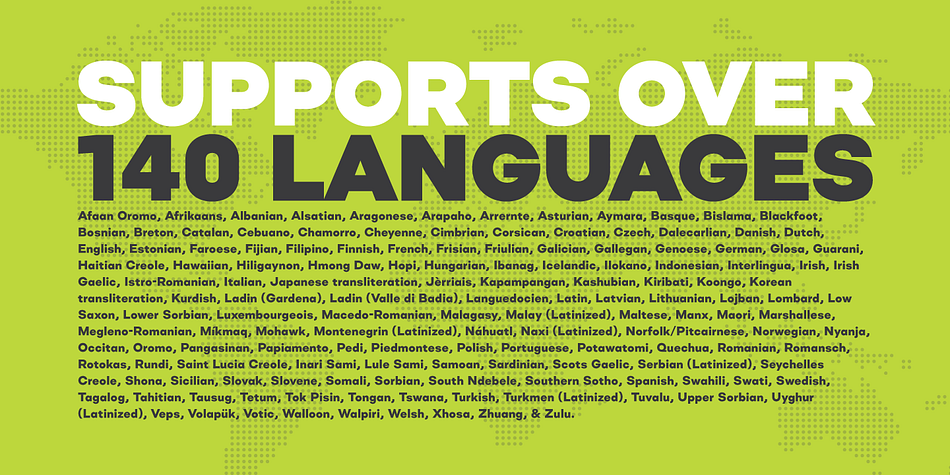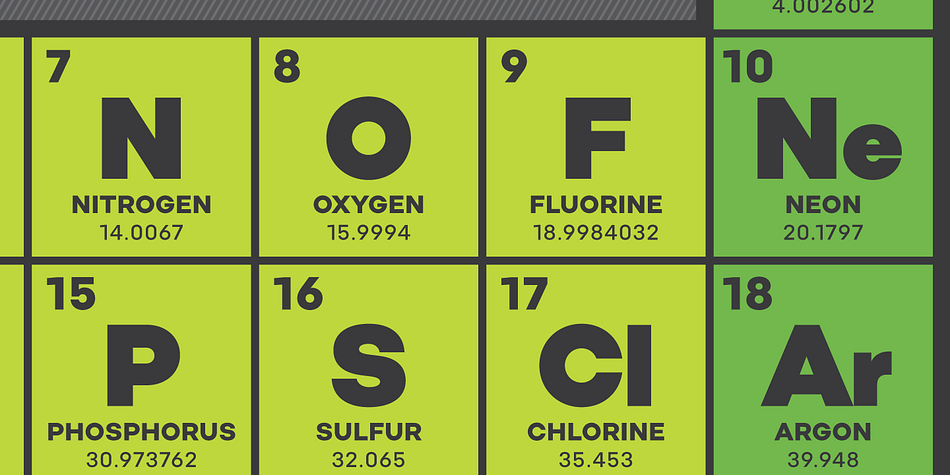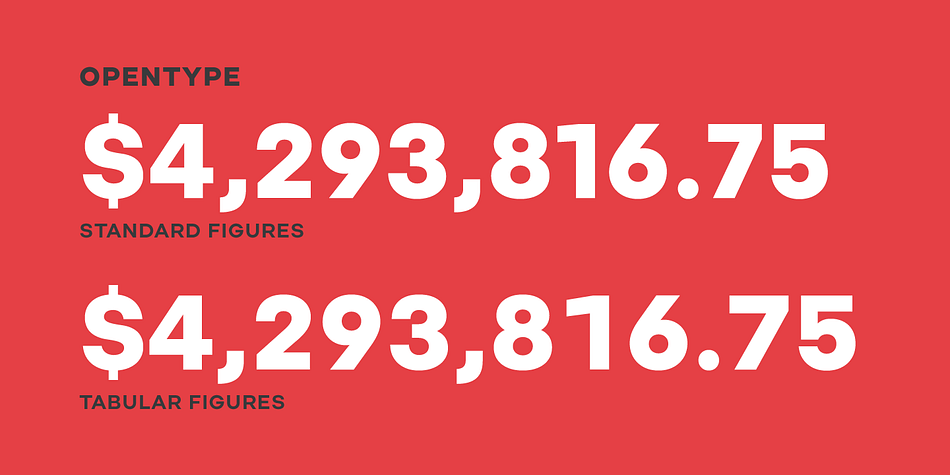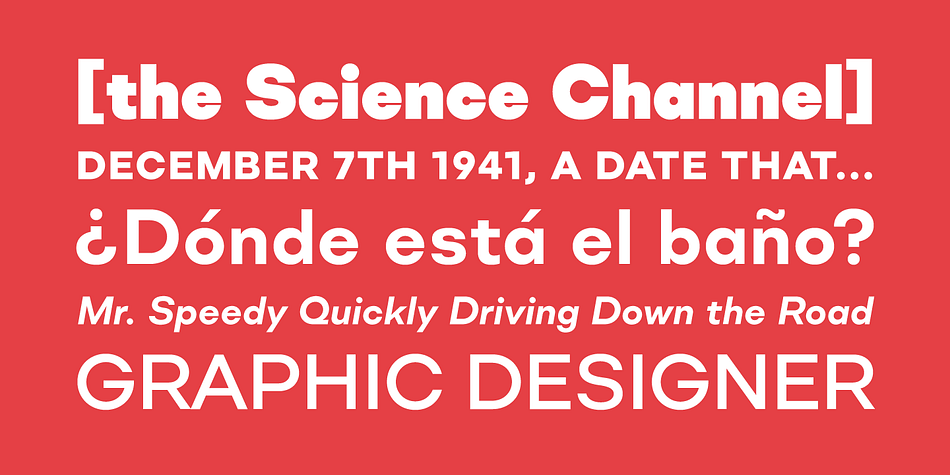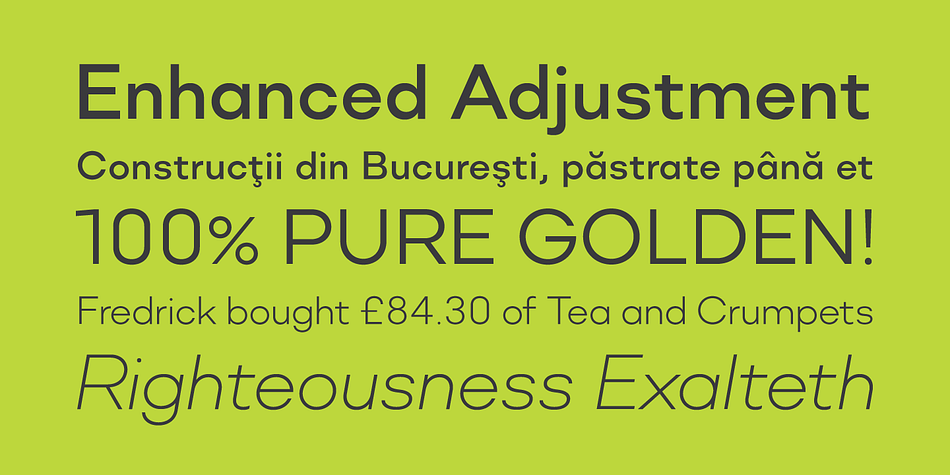
Designed by Richard Miller, Mercenary is a sans serif font family. This typeface has fourteen styles and was published by Miller Type Foundry.
Mercenary is a geometric font family made up of seven weights, all with matching italics. Designed to be neutral, Mercenary works for almost any project and in conjunction with almost any style. Mercenary looks great big or small, making it a true workhorse typeface.